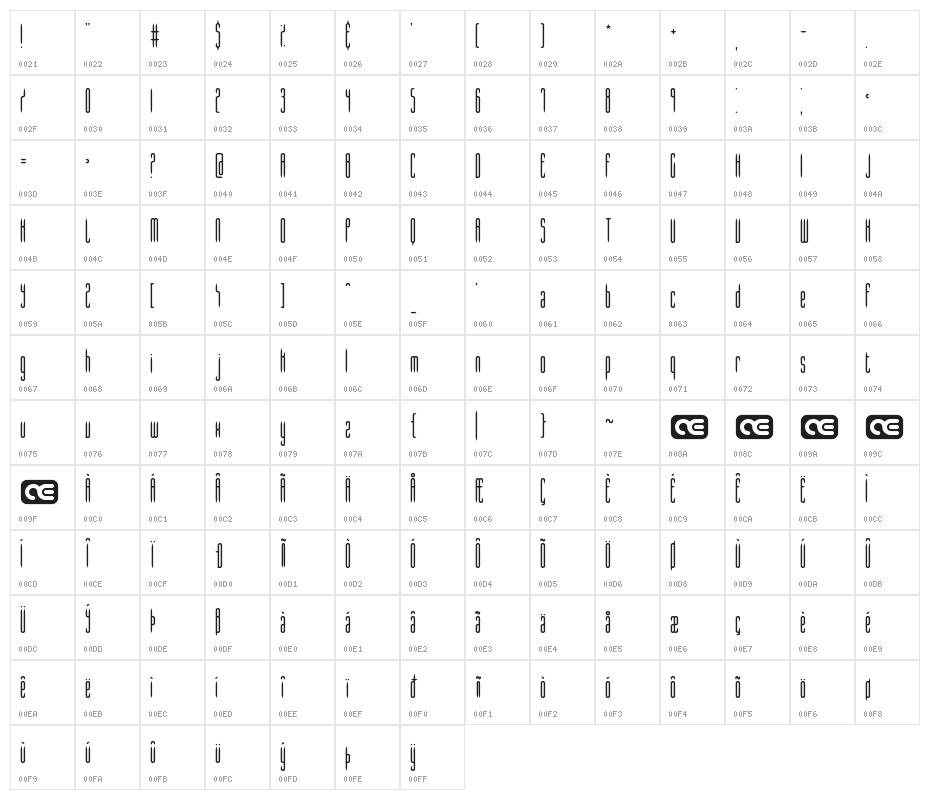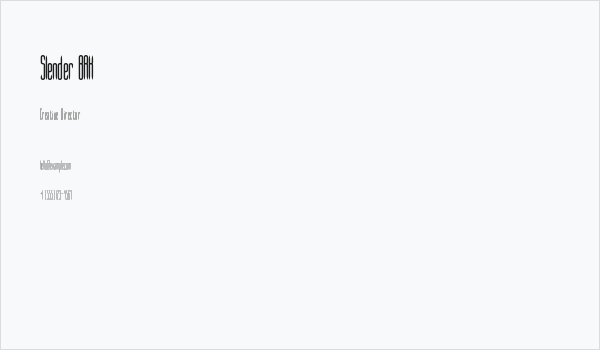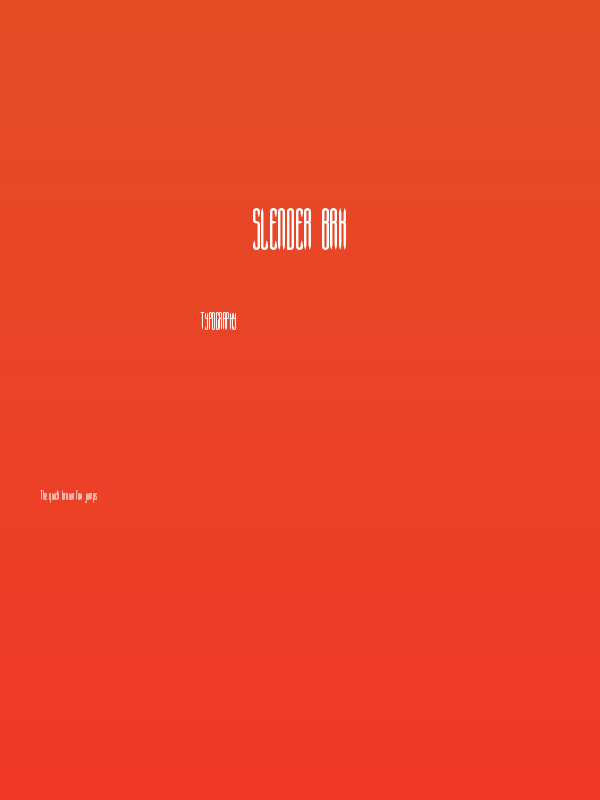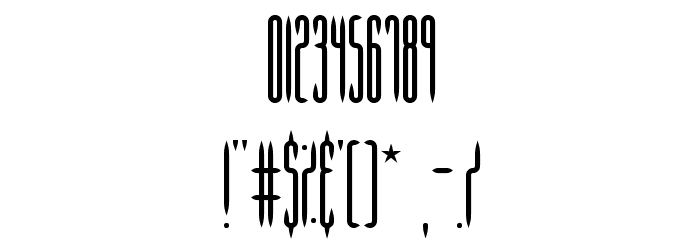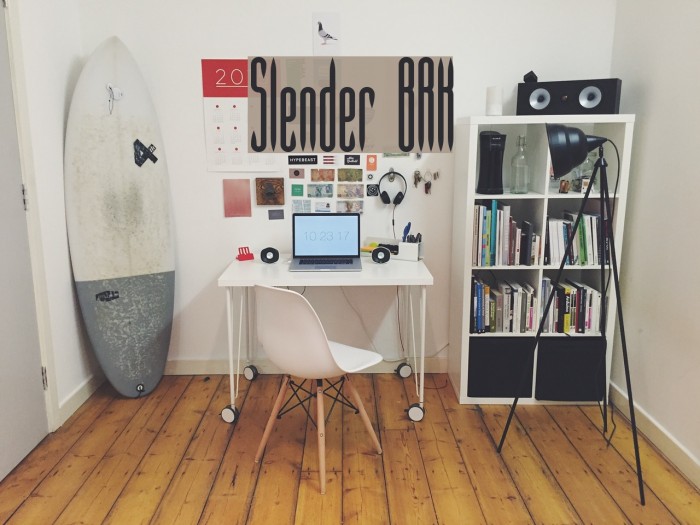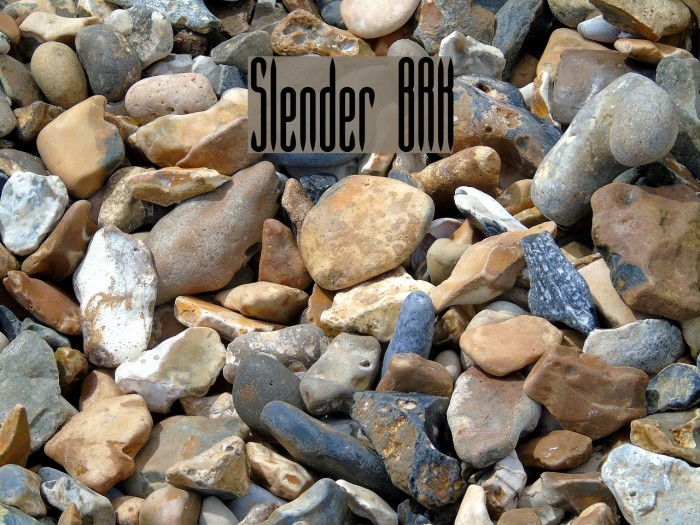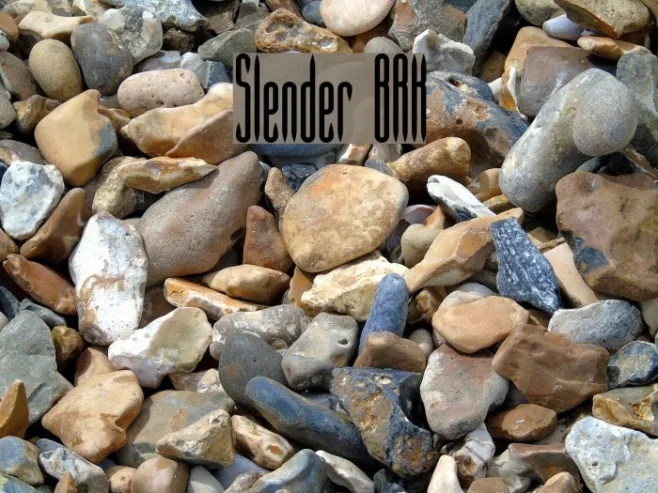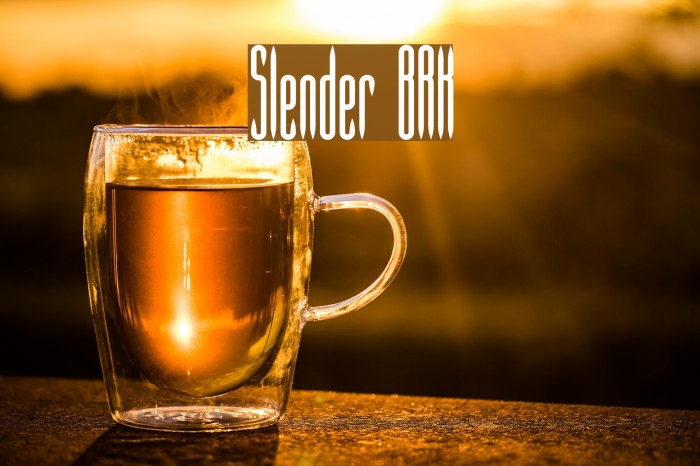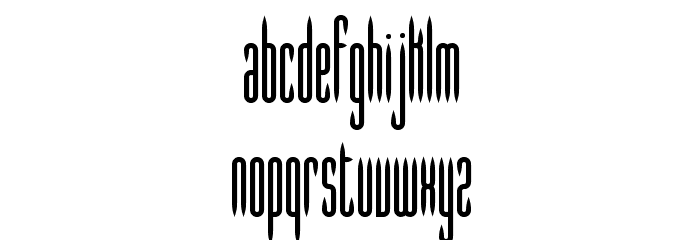
Slender BRK Font
Slender BRK Description
This font features a tall and narrow design with elongated vertical lines, giving it a sleek and modern appearance. The characters have a unique, slightly curved structure that adds a touch of elegance and sophistication. The uppercase and lowercase letters maintain a consistent height, contributing to a uniform and cohesive look. The numerals and special characters are designed to match the overall style, with similar elongated and narrow forms. This font is ideal for creating a striking visual impact, making it suitable for headlines and display purposes.
| Proposed Projects | Ideal for branding, posters, headlines, and any project requiring a modern and impactful typeface. |